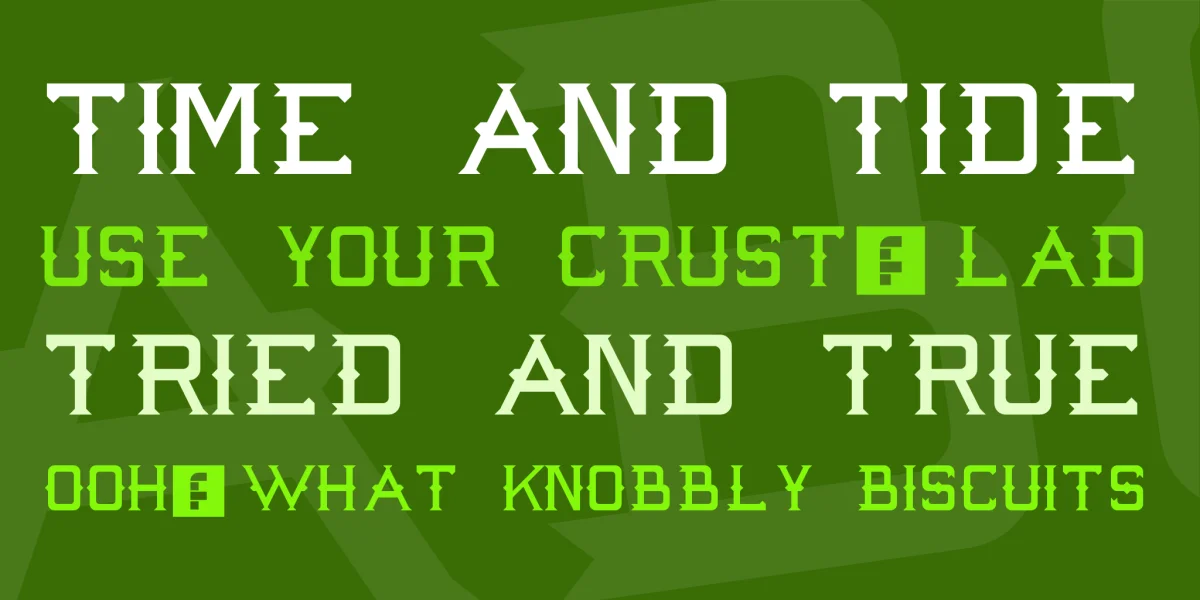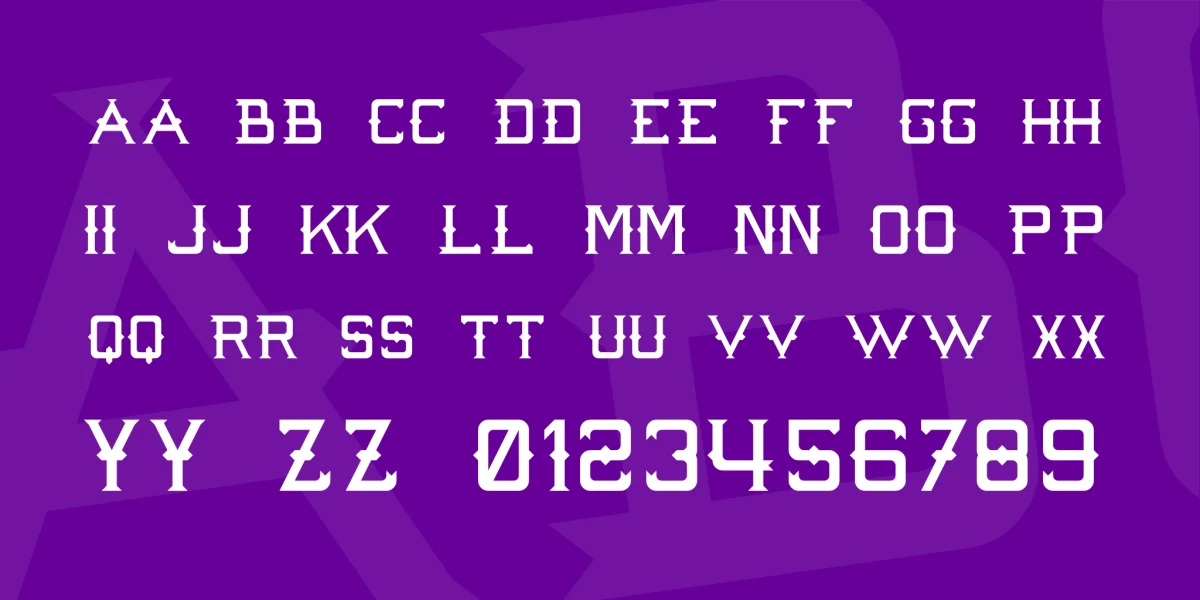
This is a baseball-themed font with flag serifs every which way but loose! Perfect for jerseys and baseball-themed projects. Commercial licenses available!